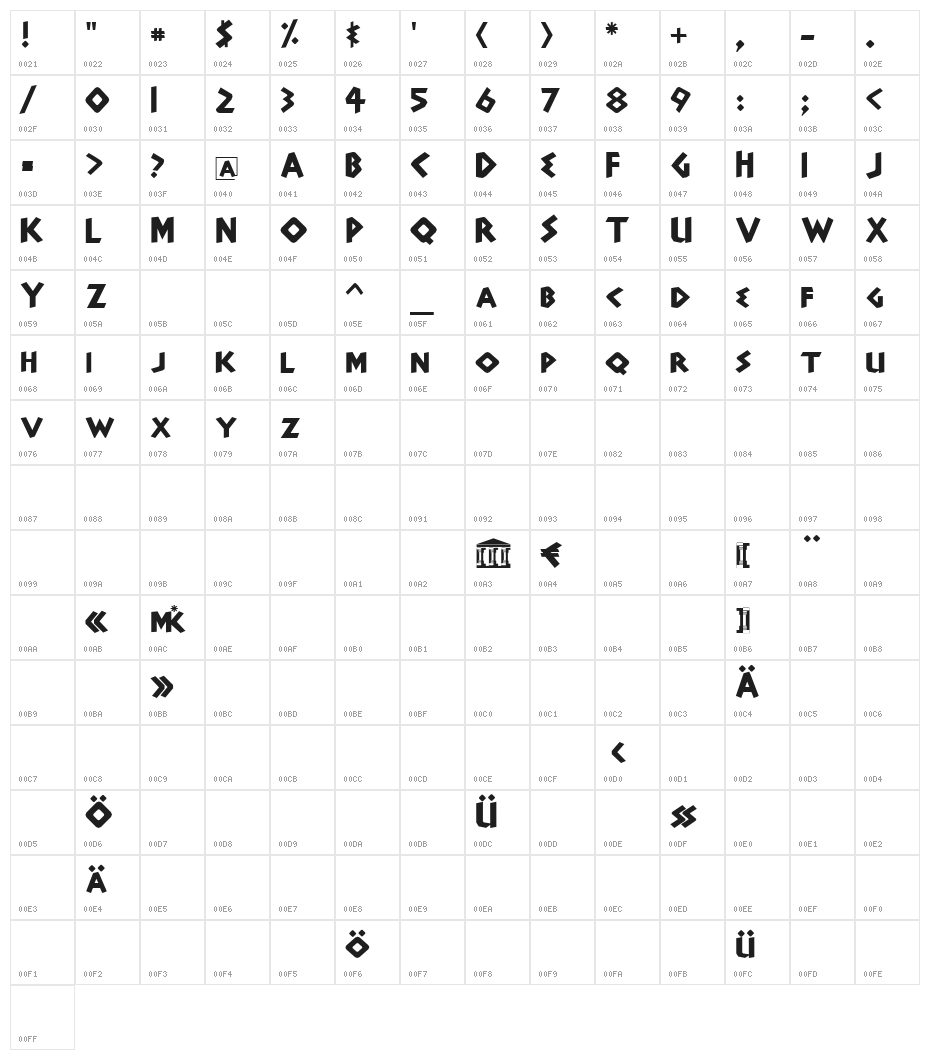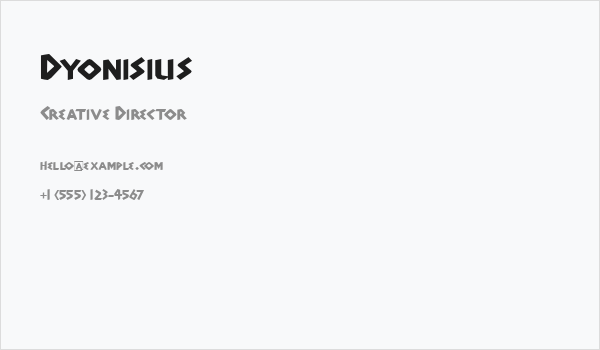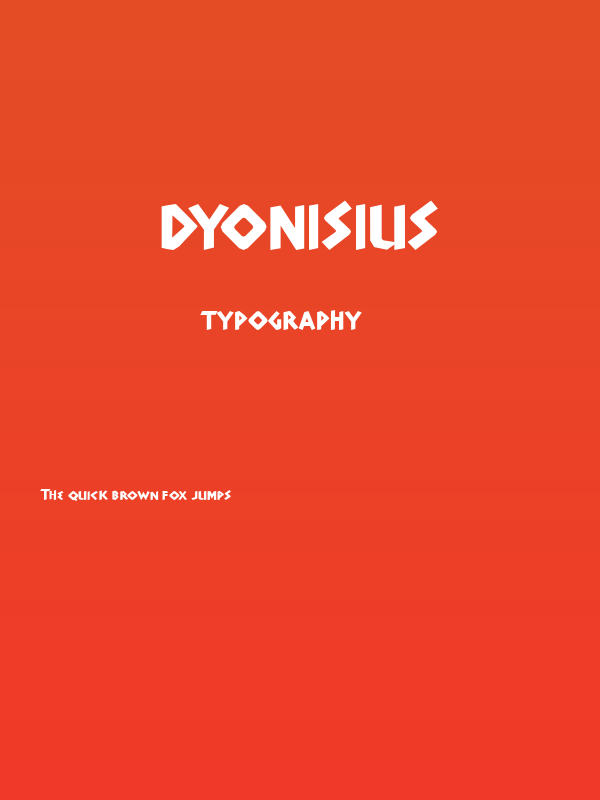
Dyonisius Font
Dyonisius Description
This font features a bold and angular design with a distinct geometric style. The characters are crafted with sharp edges and a slightly aggressive stance, giving it a modern and edgy appearance. The uppercase and lowercase letters maintain a consistent weight, while the numerals and special characters follow the same angular theme. The font's unique style makes it stand out, with each letterform exhibiting a dynamic and energetic feel. The overall design is cohesive, with a strong emphasis on boldness and clarity, making it suitable for impactful visual statements.